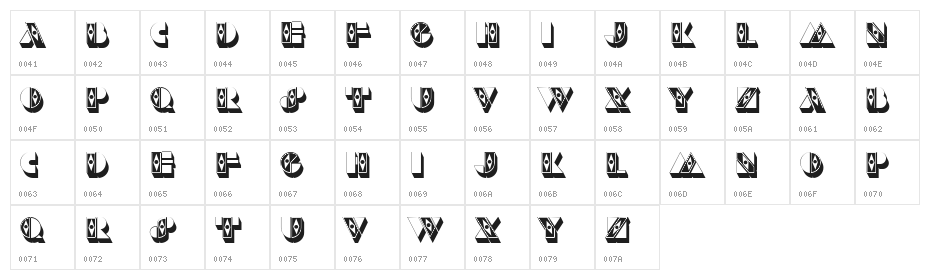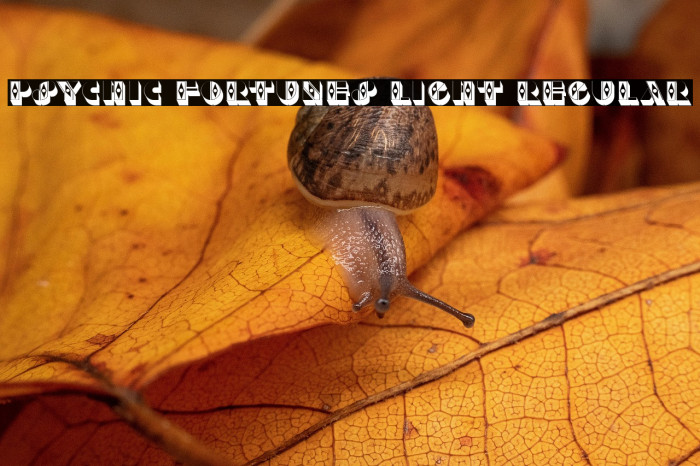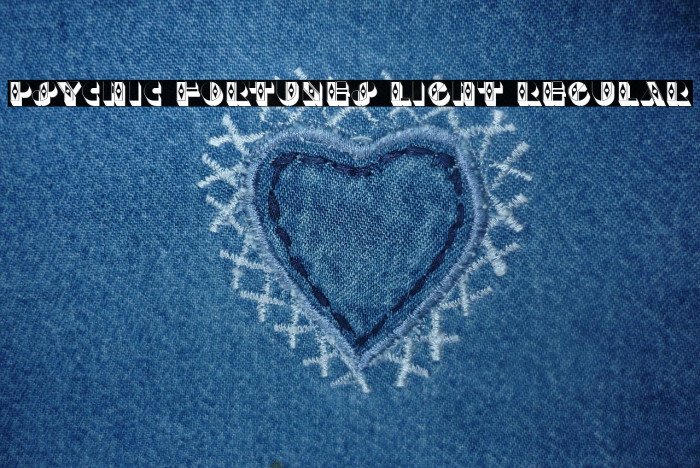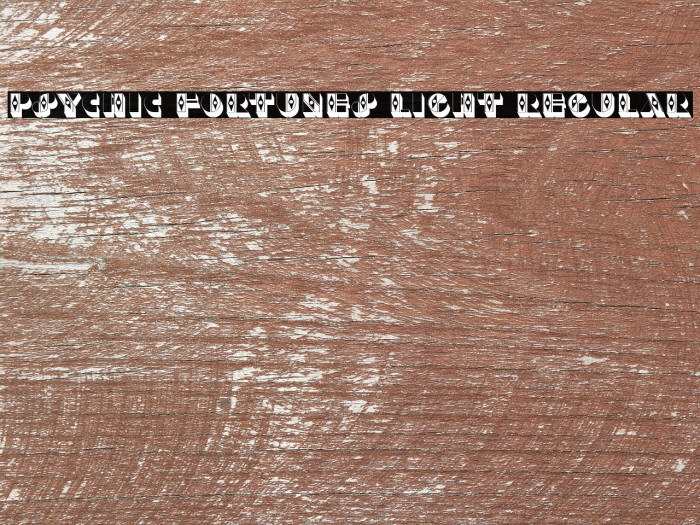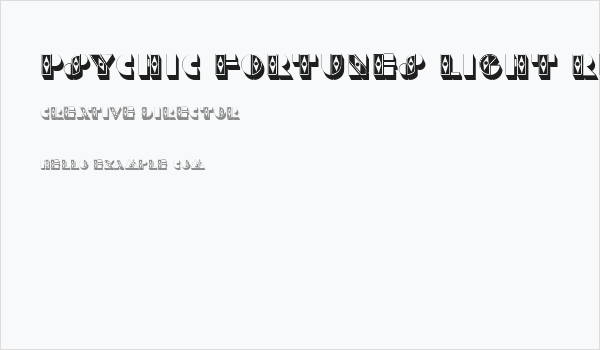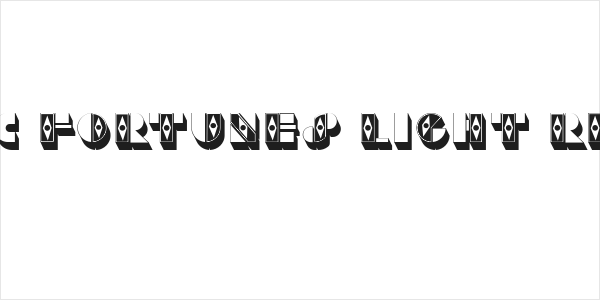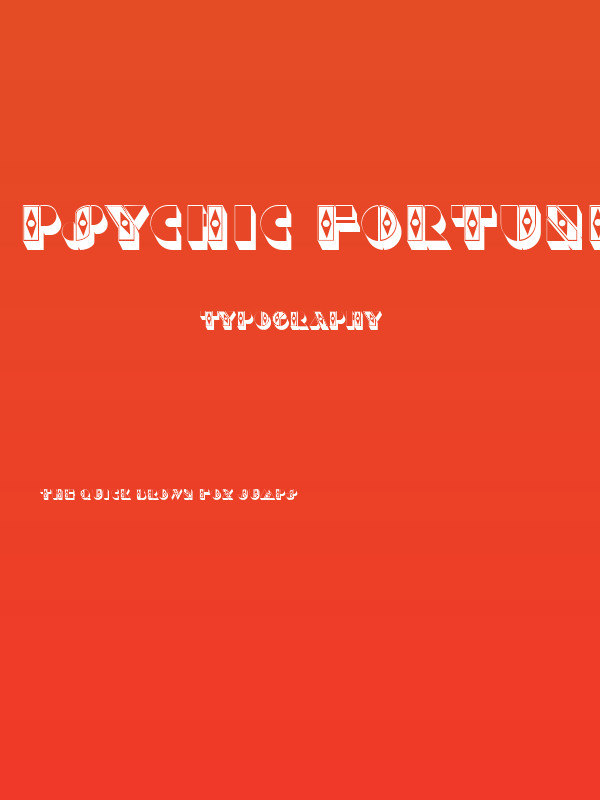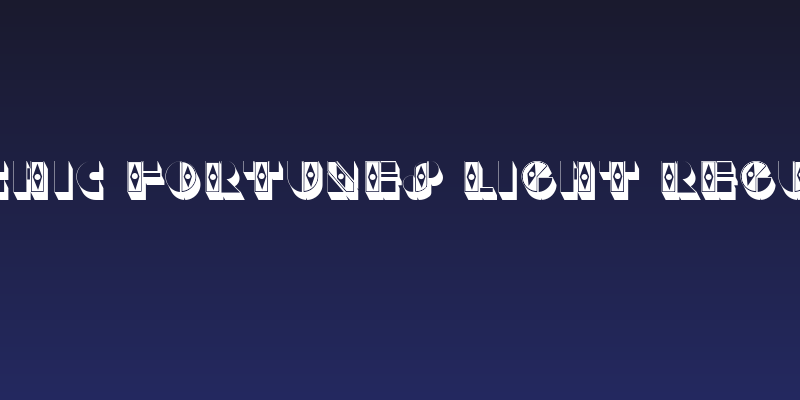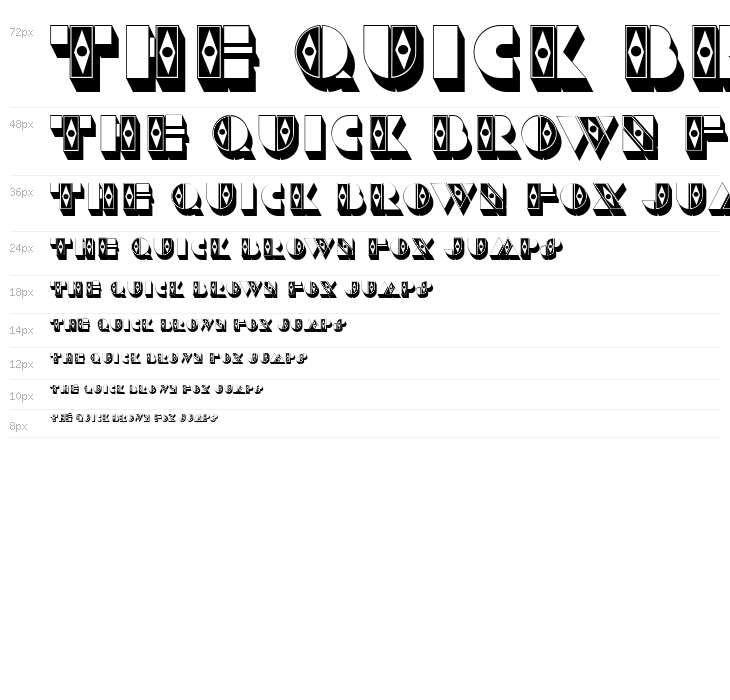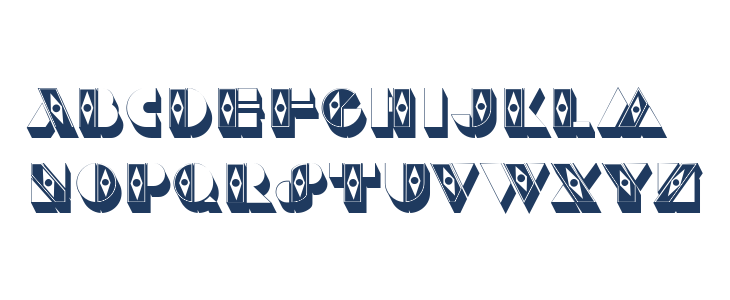
Psychic Fortunes Light Regular Font
Psychic Fortunes Light Regular Description
This font features a bold and decorative style with a unique geometric design. Each character is adorned with intricate patterns resembling mystical symbols, giving it an enigmatic and eye-catching appearance. The letters are three-dimensional, with a shadow effect that adds depth and a sense of mystery. The overall design is reminiscent of fortune-telling or mystical themes, making it ideal for projects that require a touch of the supernatural or the mysterious. The font maintains a consistent weight and width throughout, ensuring readability while still being visually striking.
| Proposed Projects | Ideal for use in tarot card designs, mystical event posters, themed book covers, or any project requiring a supernatural or mysterious aesthetic. |